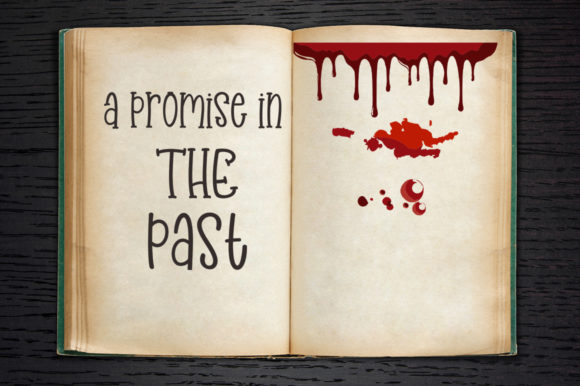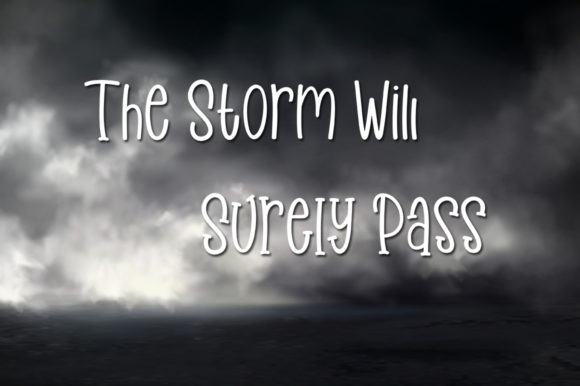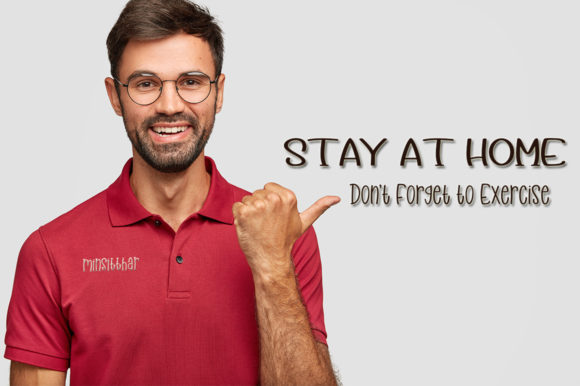
Introduction to Minsitthar Font
Minsitthar is a fun, casual, asymmetrical and unique handwritten font.
It is suitable for any branding, product packaging, invitation, quote, t-shirt, label, poster, logo that you wish to develop .
Key Features of Minsitthar Font